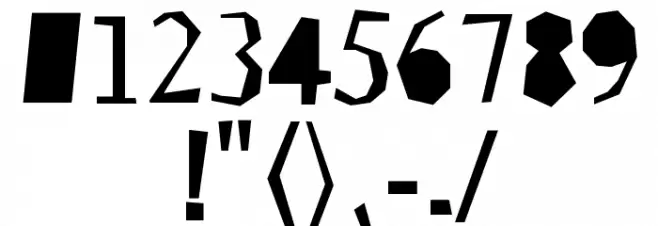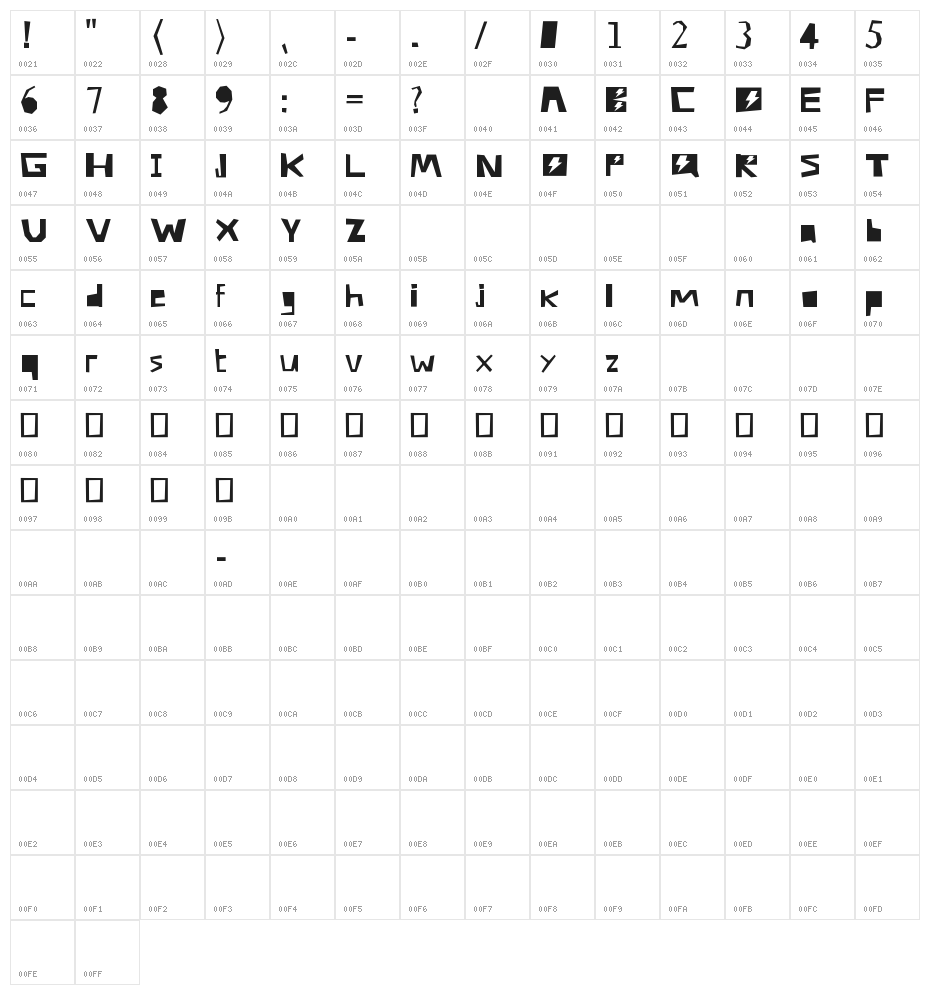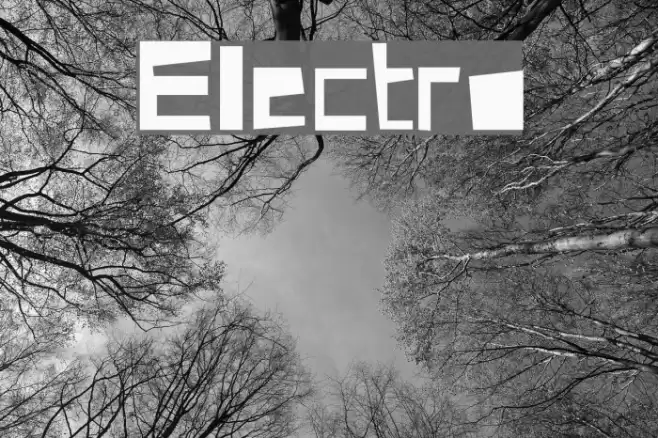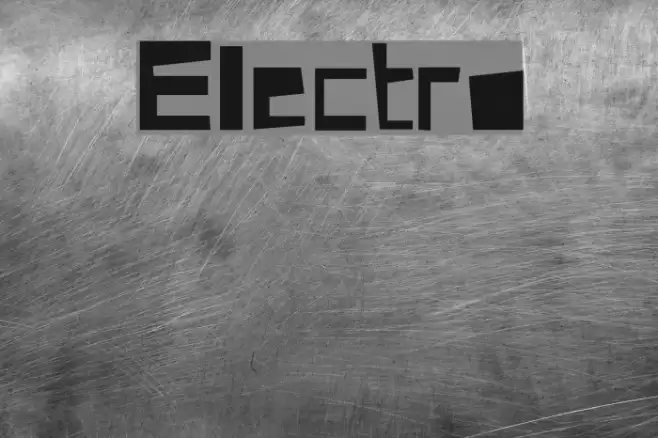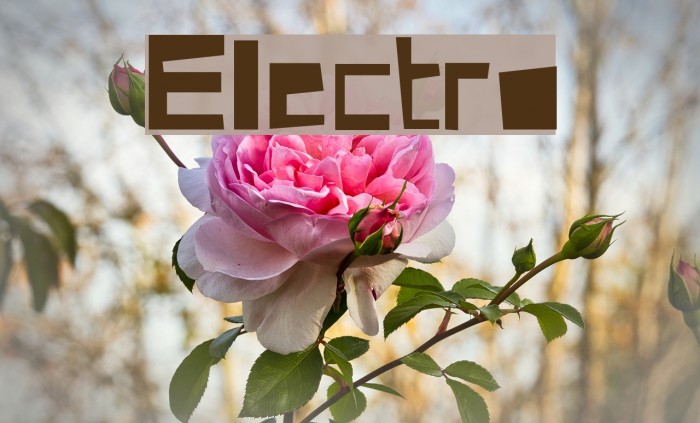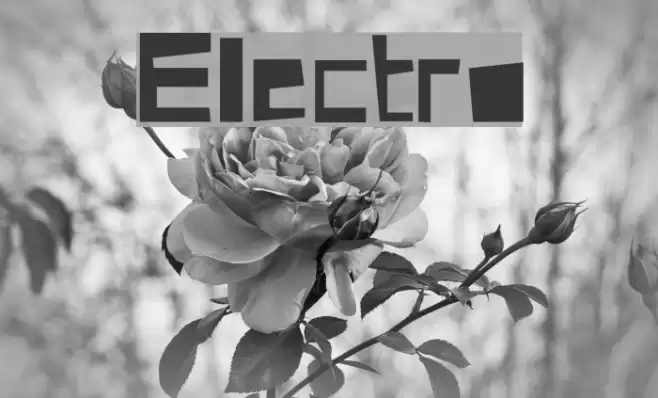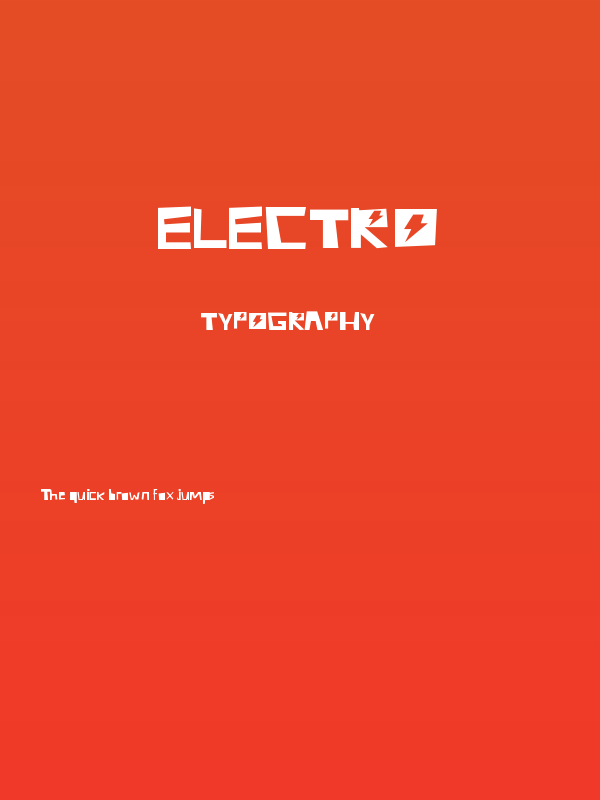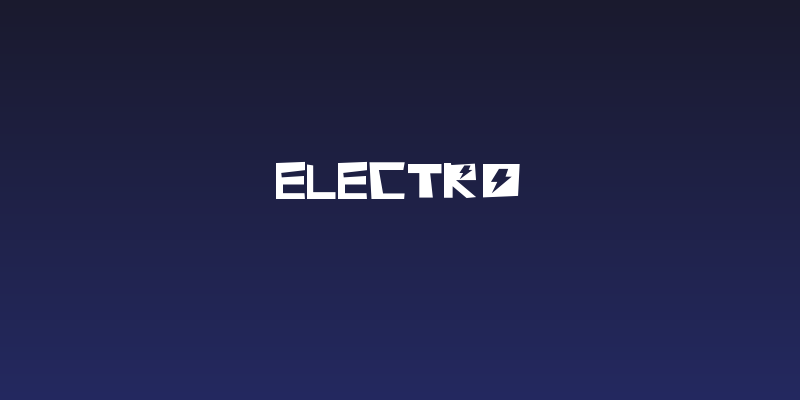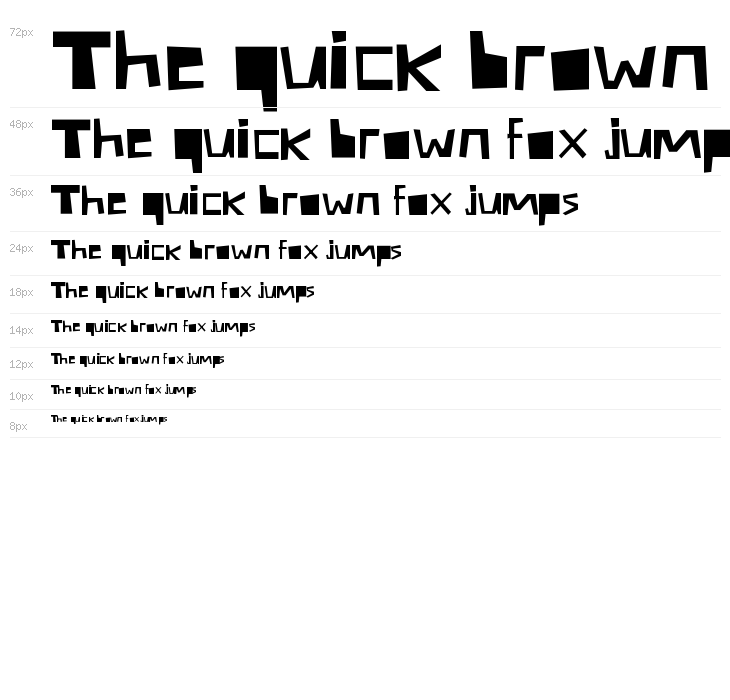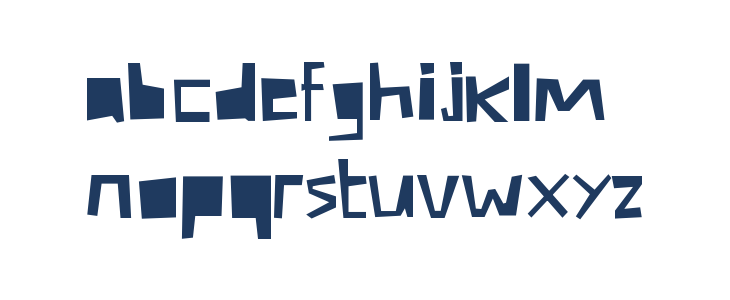
Electro Font
Electro Description
This font features a bold, angular design with a distinct, electrifying aesthetic. The uppercase letters incorporate lightning bolt motifs within certain characters, adding a dynamic and energetic feel. The lowercase letters maintain a consistent angular style, creating a cohesive look across the alphabet. Numbers and special characters follow the same bold, geometric pattern, ensuring uniformity throughout. The font's sharp edges and unique design make it stand out, ideal for projects that require a modern and edgy appearance.
| Proposed Projects | Perfect for music album covers, event posters, video game titles, and branding for tech or energy companies. |